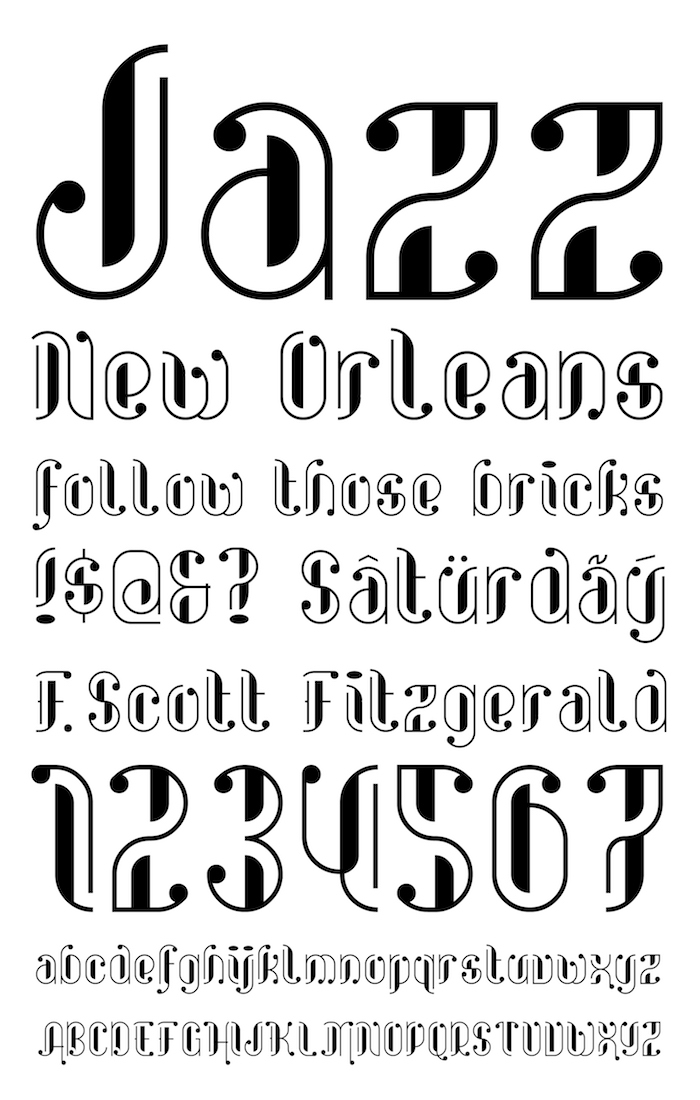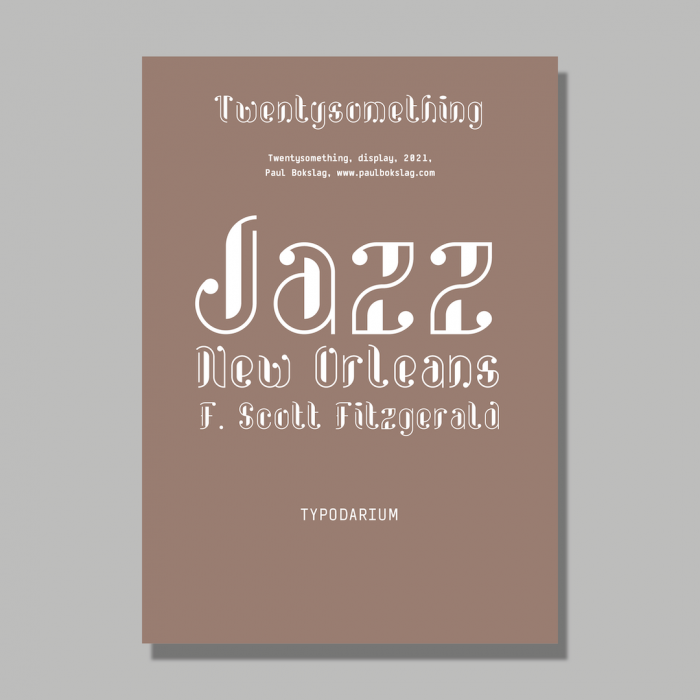
When Bauhaus met Art Deco
A brilliant mix of the two styles
Brilliant like a morning star!
Brilliant
oh my this is so cool
Wowz!
Stunning!
@four: A fantastic entry to the competition. 10/10
Very fancy, well done.
Supreme achievement. Doubly so at this scale.
FontStructor’s favourite once again! ❤️ Congratulations, compañero!
love it. it's on my favorites list
Also my congratulations on the TP. I like this beautiful play of light and shadow.
bam, i'm in love